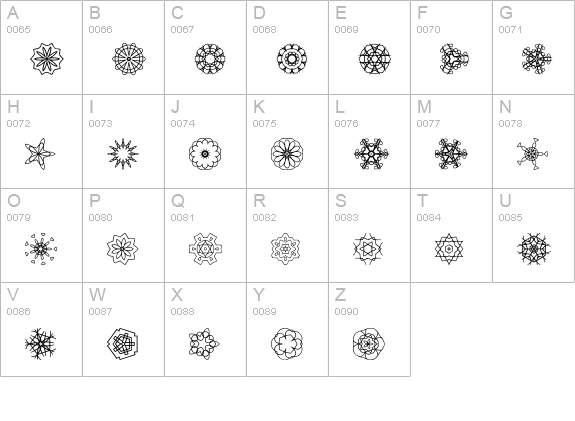
JI Kaleidoscope Bats Font Details
Introducing the mesmerizing JI Kaleidoscope Bats font, a stunning display typeface that will bring a touch of enchantment to your designs. This font is a symphony of intricate patterns and intricate details, inspired by the art of kaleidoscopes. With its delicate strokes and captivating aesthetic, JI Kaleidoscope Bats font will transport your audience to a world of magic and wonder. But what makes this font even more extraordinary is that it is absolutely free! Yes, you heard it right. JI Kaleidoscope Bats font is freely available to download at FontsMarket.com, making it accessible to designers, artists, and enthusiasts alike. Gone are the days of breaking the bank for premium fonts, as this delightful typeface offers you the opportunity to elevate your projects without spending a penny. Whether you are designing a captivating poster, creating eye-catching social media graphics, or adding a touch of whimsy to your personal artwork, JI Kaleidoscope Bats font is the perfect companion. Its unique and captivating design will effortlessly capture attention and leave a lasting impression on your audience. With its extensive character set and versatile usage options, JI Kaleidoscope Bats font offers endless creative possibilities. From headline typography to decorative elements, this font will add that extra layer of uniqueness and personality to your designs. Its intricate details and ornate patterns will ensure that your creations stand out from the crowd. So why wait? Embrace the magic and download JI Kaleidoscope Bats font for free at FontsMarket.com today. Unleash your creativity and let this enchanting typeface elevate your designs to new heights. Get ready to mesmerize your audience with the captivating beauty of JI Kaleidoscope Bats font.